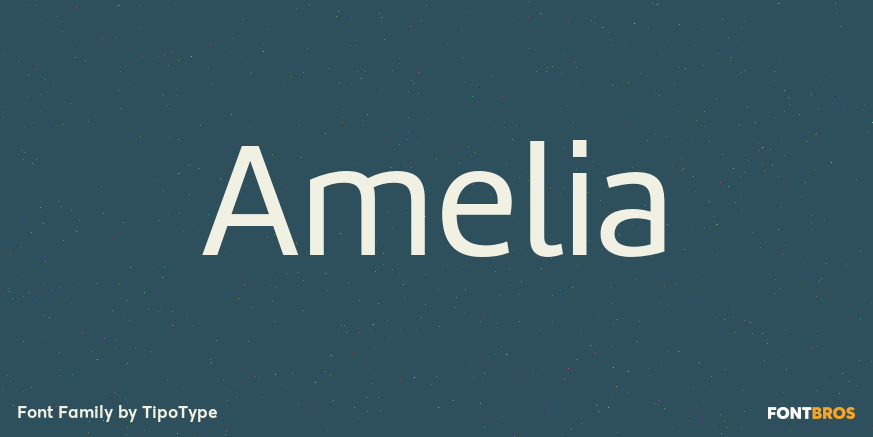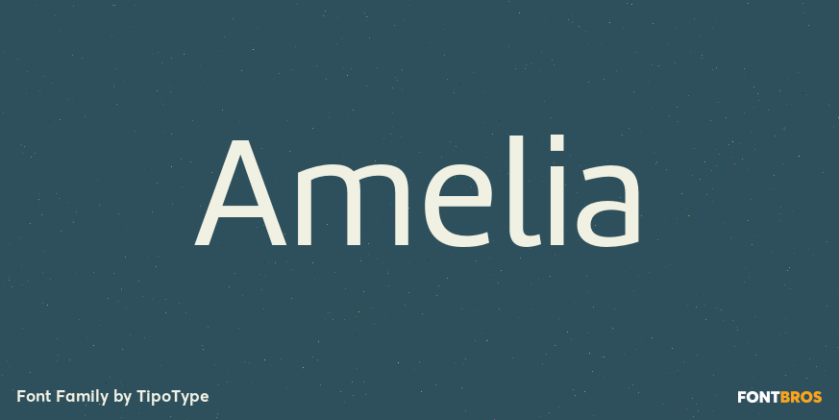
Amelia
About Amelia
Amelia is a geometric sans, but it keeps the softness of humanistic strokes. The contrast and the different styles allow Amelia to work as a text or display font. Also it incorporates an Up version, calligraphic features that add a touch of informality.…